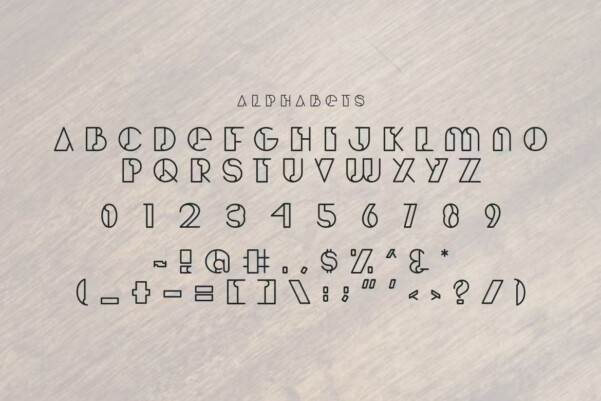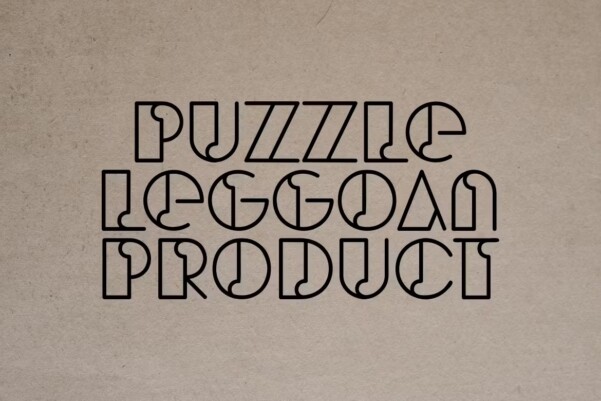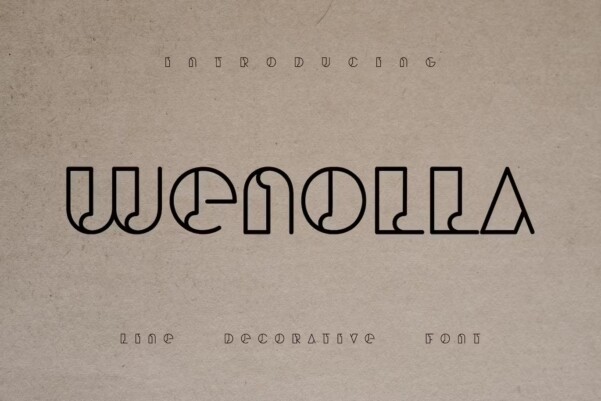
Wenolla Font
Wenolla Font, line-shaped font is also adapted to line thickness. As it is hollow, it is intended to be suitable for products such as puzzles, mosaics, archaeologists and museum needs such as ancient human tools. The world of stone also falls into this category.